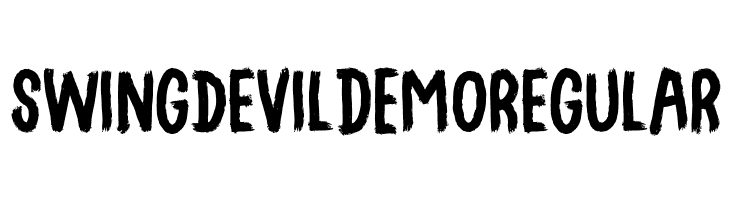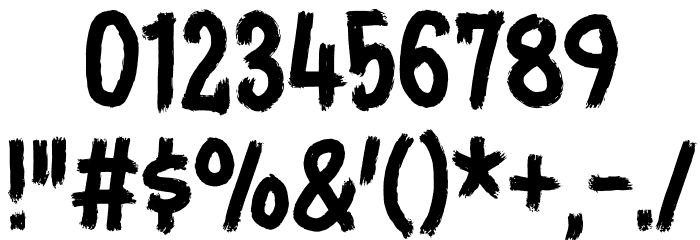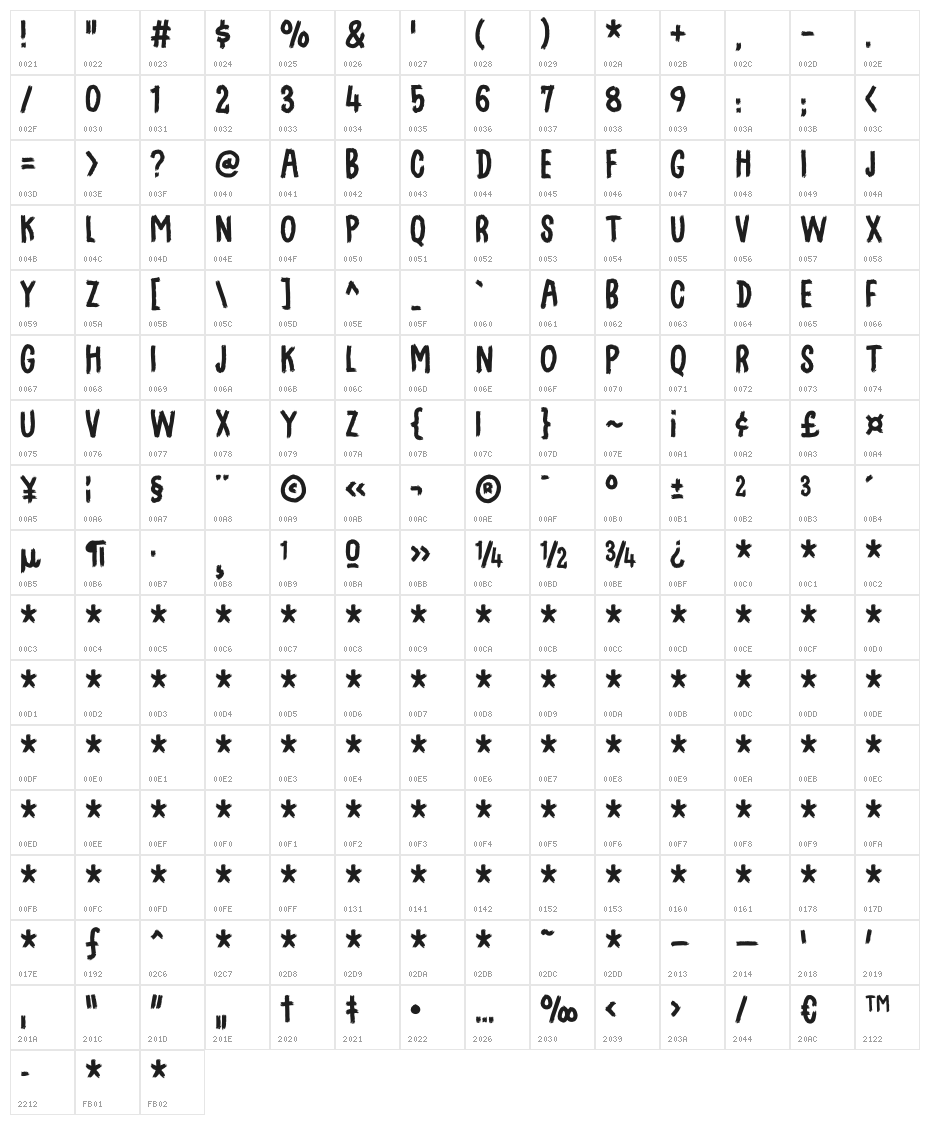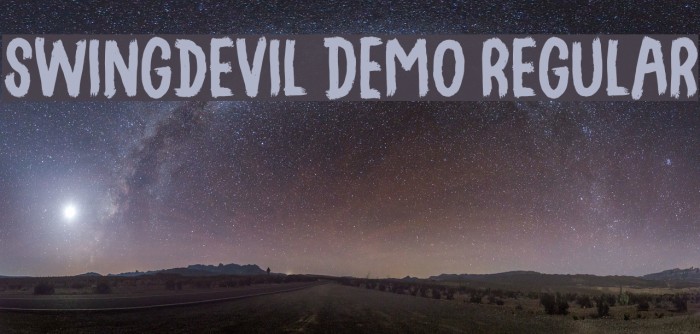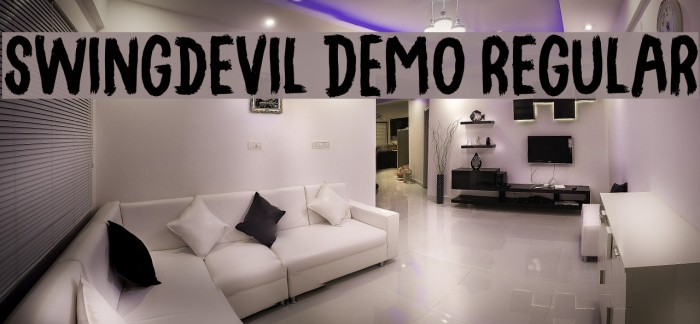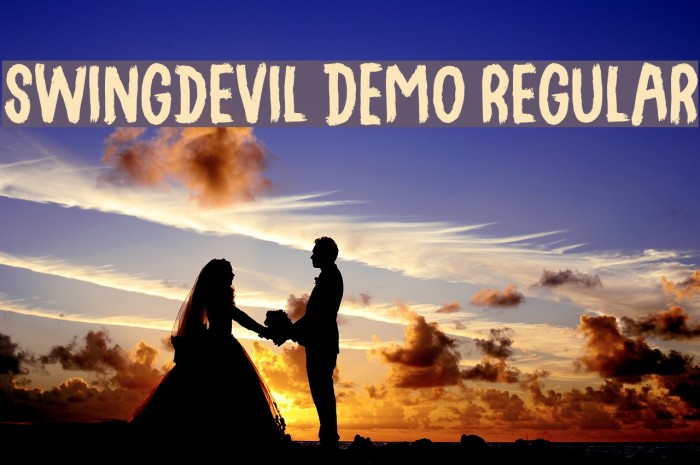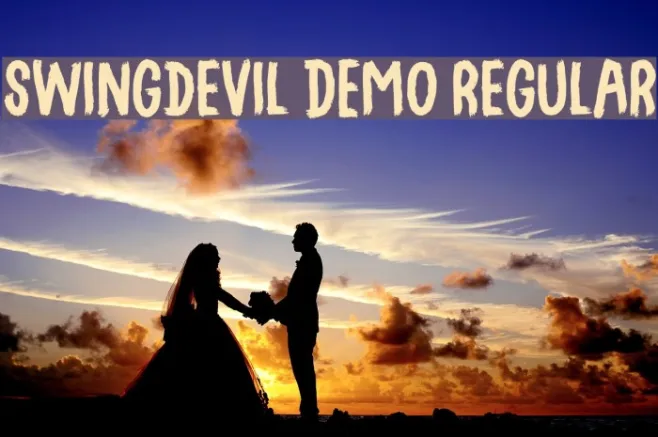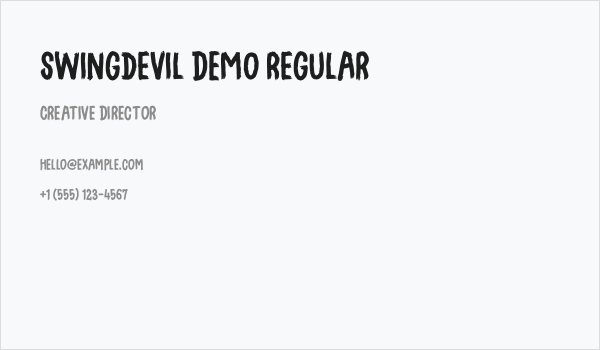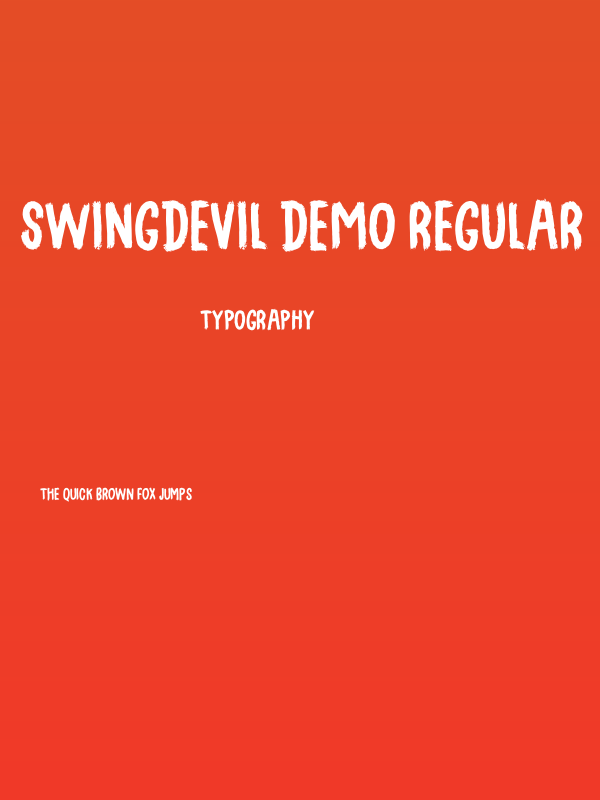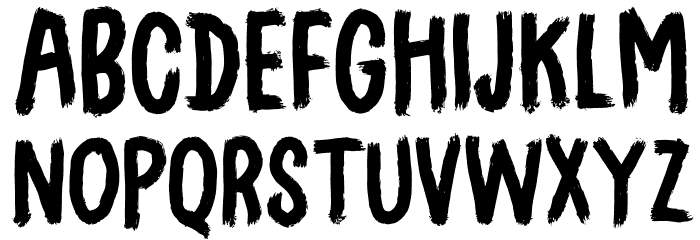
Swingdevil DEMO Regular Font
Swingdevil DEMO Regular Description
This font exhibits a bold and expressive brush style, characterized by its rough, textured edges that give it a hand-painted appearance. The uppercase and lowercase letters maintain a consistent height, contributing to a uniform look despite the dynamic strokes. Numbers and special characters follow the same stylistic approach, ensuring cohesiveness across all elements. The font's energetic and artistic flair makes it stand out, ideal for projects that require a strong visual impact. Its unique style can add a creative touch to various design applications.
| Proposed Projects | Ideal for posters, album covers, branding, and any creative projects needing a bold statement. |